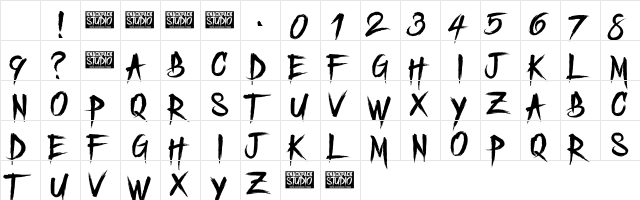
Freedoomed Demo is a composed and adaptable typeface that performs quietly and consistently across a wide range of design contexts.
Pro Tip: Use Freedoomed Demo in both headline and body roles to test its range before committing to a single application.